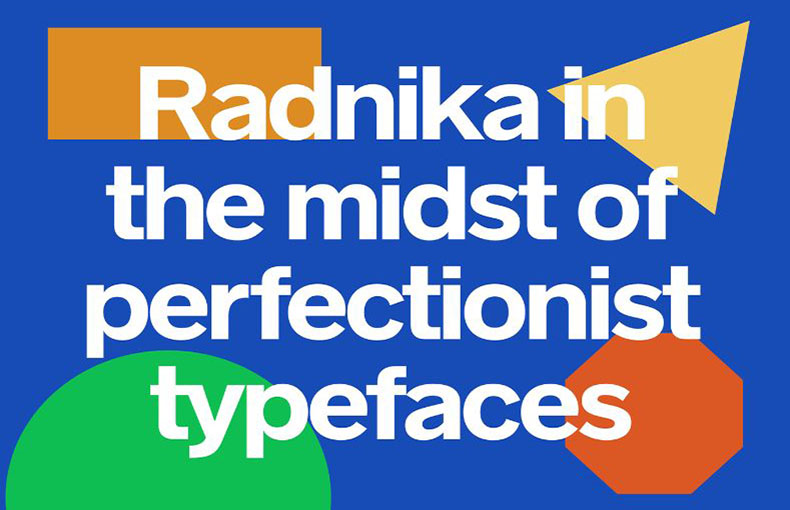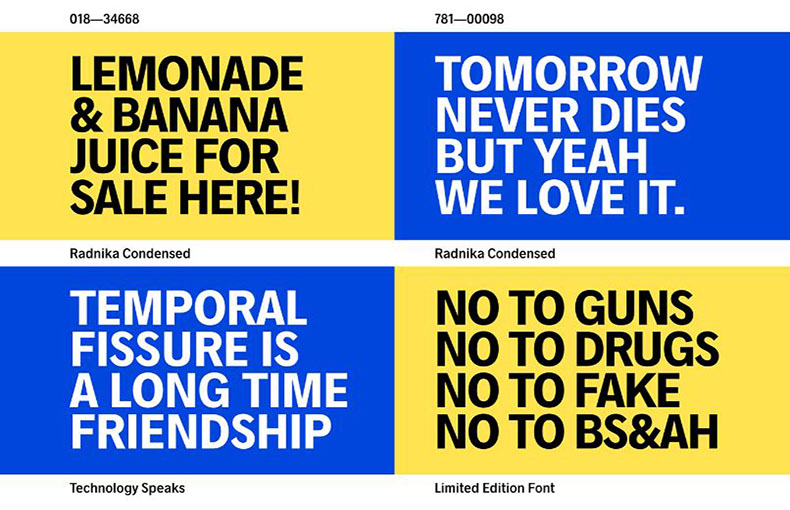
Radnika Font is a basic sans serif typeface that blends the expressive boldness of 19th-century typography with the more refined and austere styles of the 20th century.
This display typeface was created by Hanken Design Co. They are typically characterized by their clean, modern look and are often used for headlines, body text, and logos.
Its geometric shapes and clean lines give it a contemporary look and feel, while its thick strokes and sturdy structure provide a sense of solidity and reliability.
Radnika Font Family is available in 18 weights including Light Condensed and Black Condensed. Each weight contains more than 250 glyphs with 2048 units per em.
| Style: | Display, Sans Serif, Geometric |
Radnika’s legibility and readability make it a great option for designers seeking to project a sense of assurance and professionalism, whether it is used for headlines, body text, or both.
This typeface is suitable for a variety of projects, including eBooks, posters, banners, brochure layouts, product packaging, newspapers, documents, social media posters, flyers, headers, titles, banners, paragraphs, web design, product packaging, logos, book layouts, album art, and much more.
Radnika is a great choice for a variety of design projects thanks to its adaptable and cutting-edge design, which offers a classic yet modern appeal.
Radnika Font supports 94 different languages.
What is Radnika font?
The font style known as Radnika is similar to those found in books or on websites. It reads easily and has a distinctive, modern appearance.